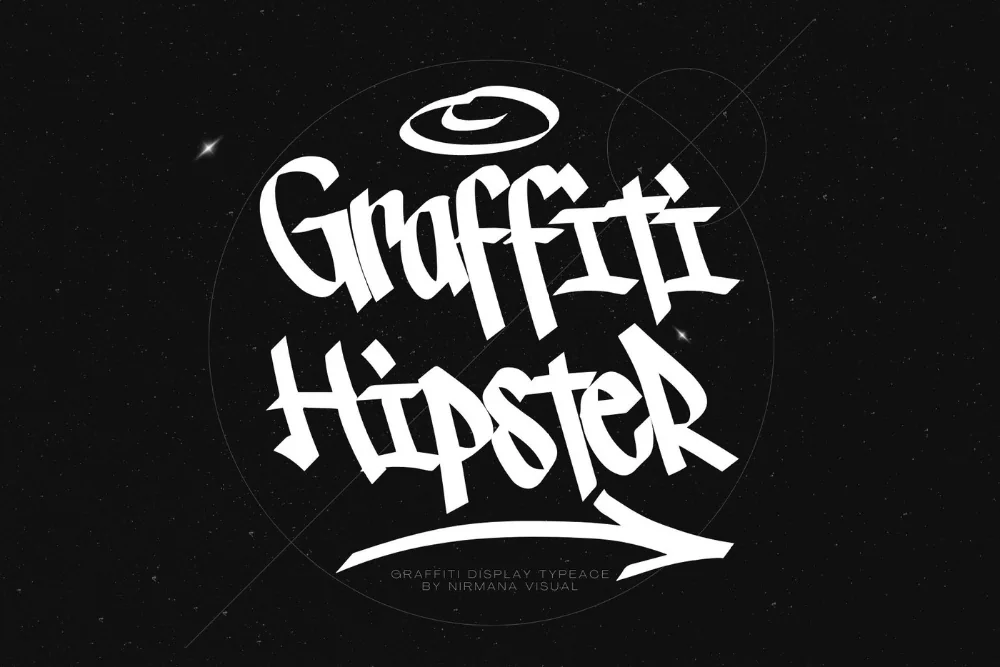
Hipster Street Script Font
If you have been hunting for a graffiti script font that does not look like every other download on the internet, this one earns its place. Connected script letterforms with a street-art attitude. Softer than a tag, sharper than a wedding script.
Characters join along a flowing baseline but keep the thick-thin contrast of marker lettering, and capitals carry decorative flourishes. Long words connect cleanly without gaps.
Fits café branding, barbershop signage, apparel scripts, and hand-lettered style quotes.
One practical note: set a test word at the size it will actually be printed before you commit to it, because street lettering behaves very differently at poster scale and on a label.